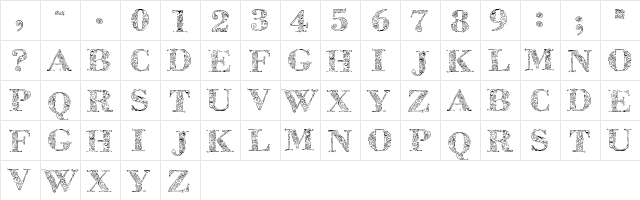
Zsylett Regular
Design Context for Zsylett Typeface
Zsylett is a composed and adaptable typeface that performs quietly and consistently across a wide range of design contexts.